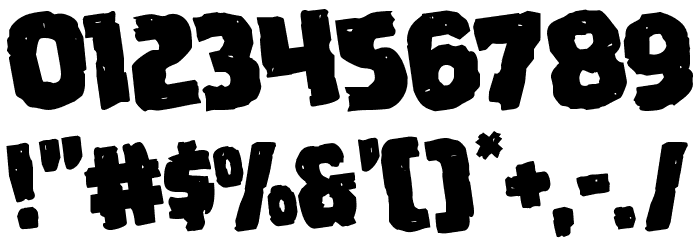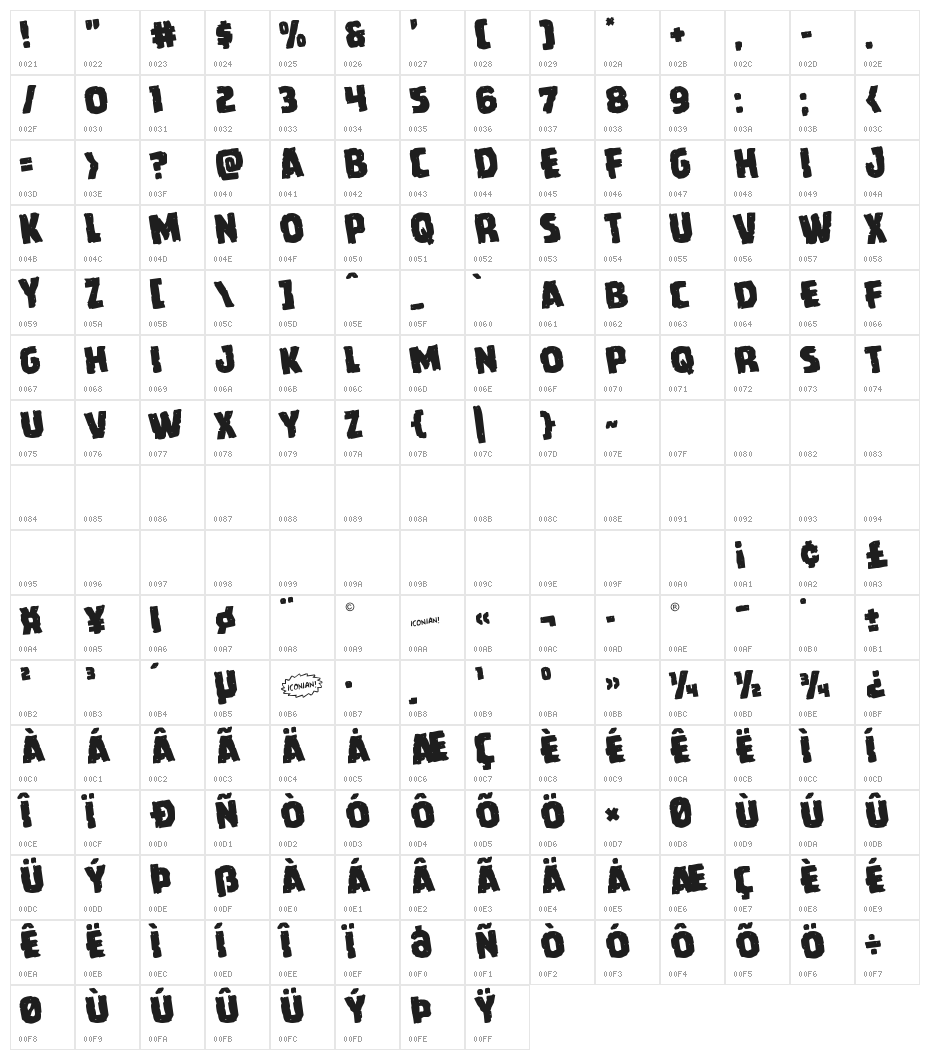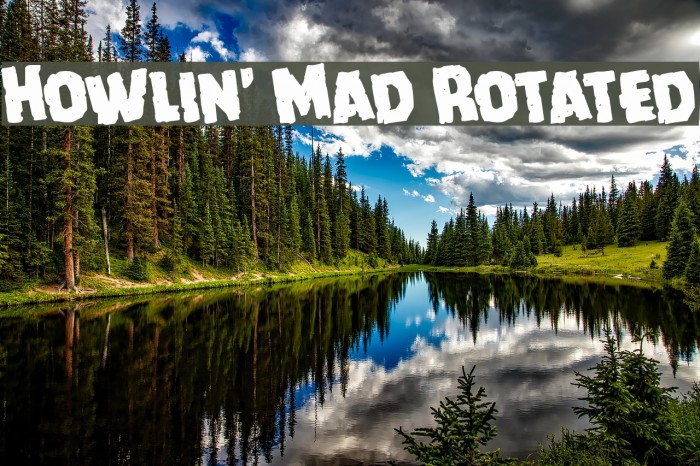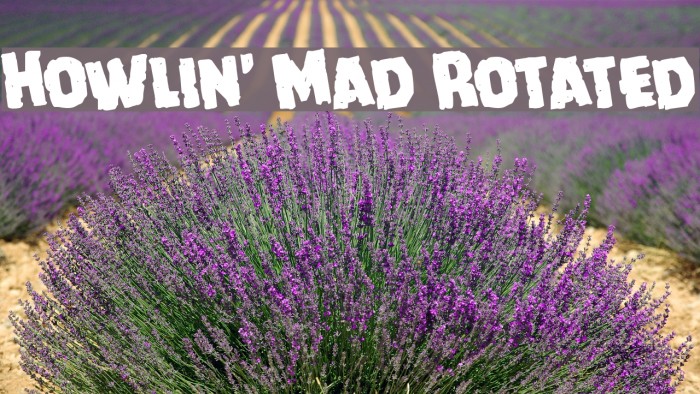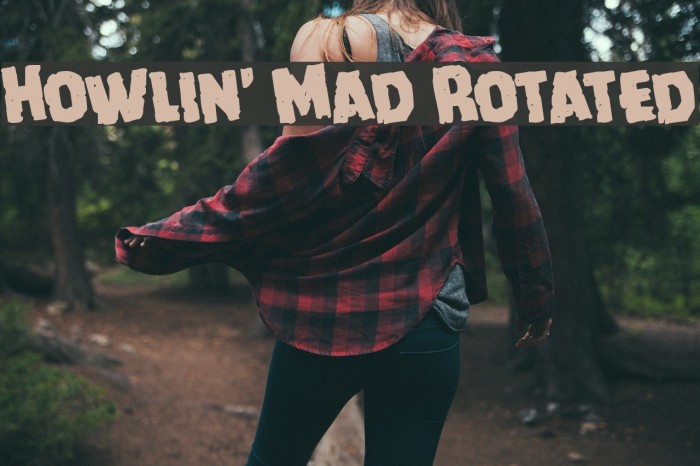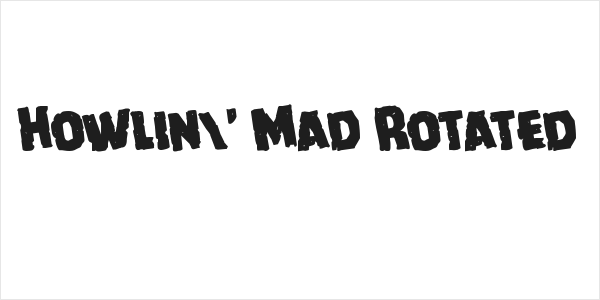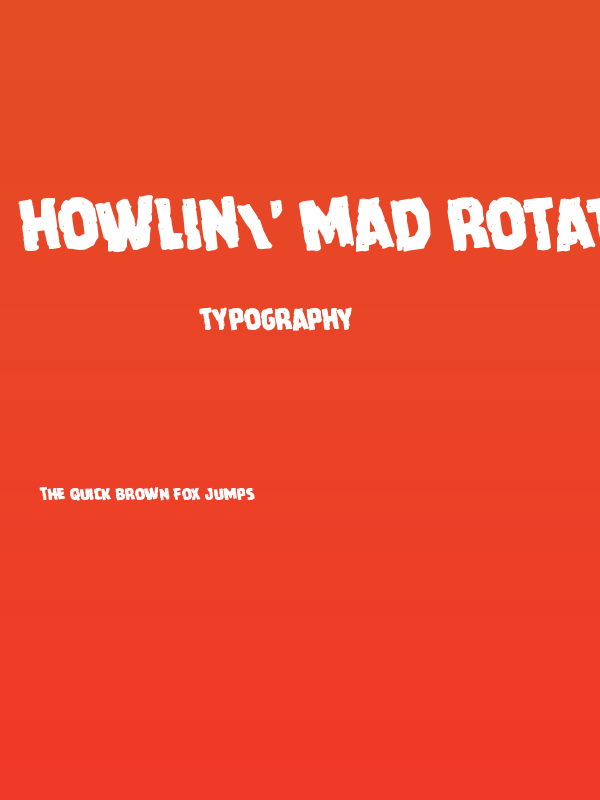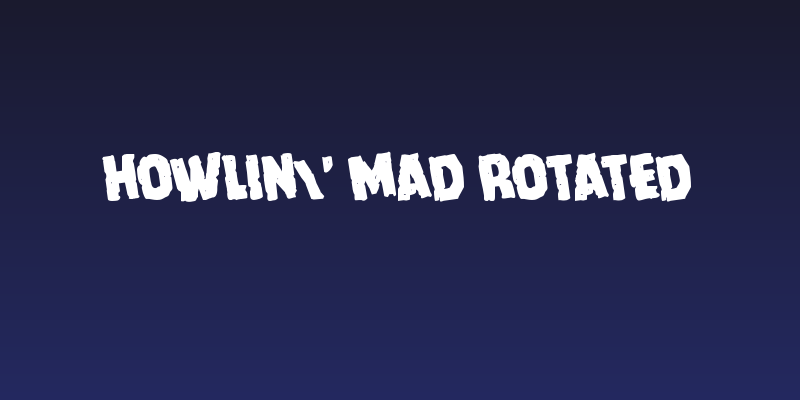
Howlin' Mad Rotated Font
Howlin' Mad Rotated Description
This font features a bold and rugged style with a distressed, hand-painted appearance. The characters are thick and heavily textured, giving them a rough, edgy look. The uppercase and lowercase letters are consistent in their boldness, with a slightly irregular shape that adds to the font's dynamic and energetic feel. The numbers and special characters maintain this bold, textured style, making them stand out prominently. This font is ideal for projects that require a strong, impactful visual presence.